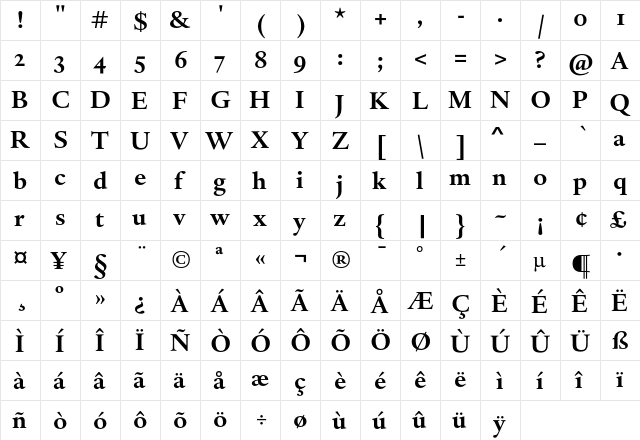
DTL Haarlemmer SD Bold
Design Context for DTL Haarlemmer Typeface
DTL Haarlemmer takes a measured approach to typography — its balanced proportions and neutral character make it a reliable workhorse for both digital and print work. The heavy weight commands attention and anchors typographic hierarchies.